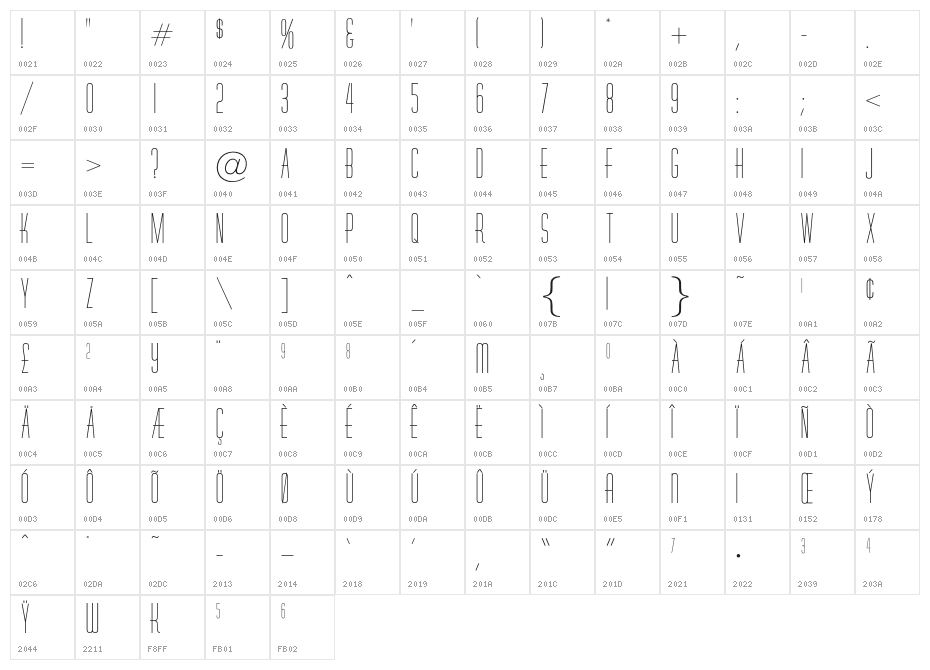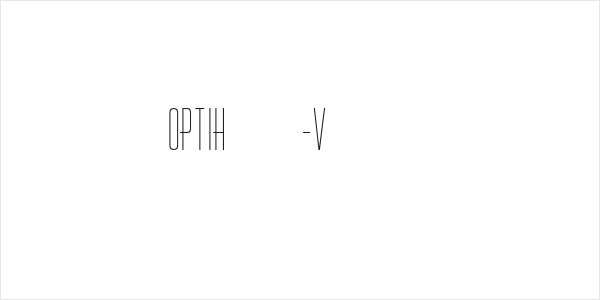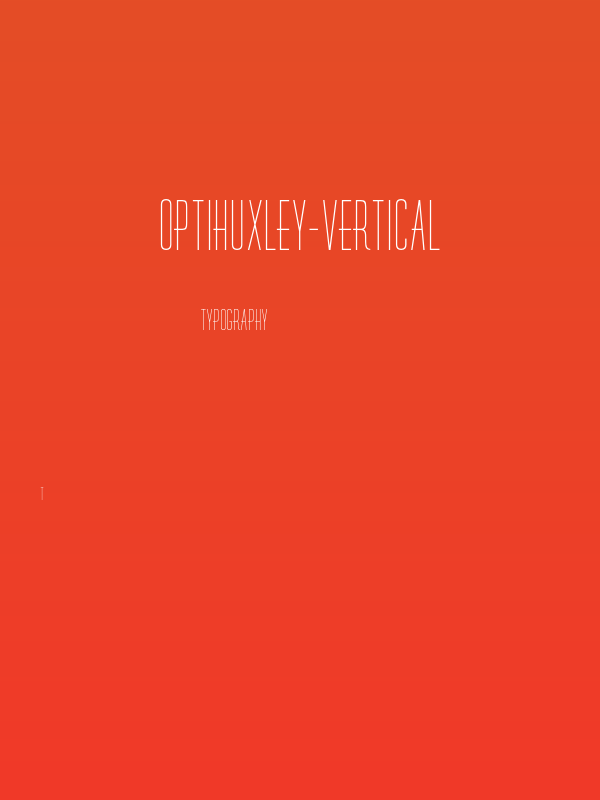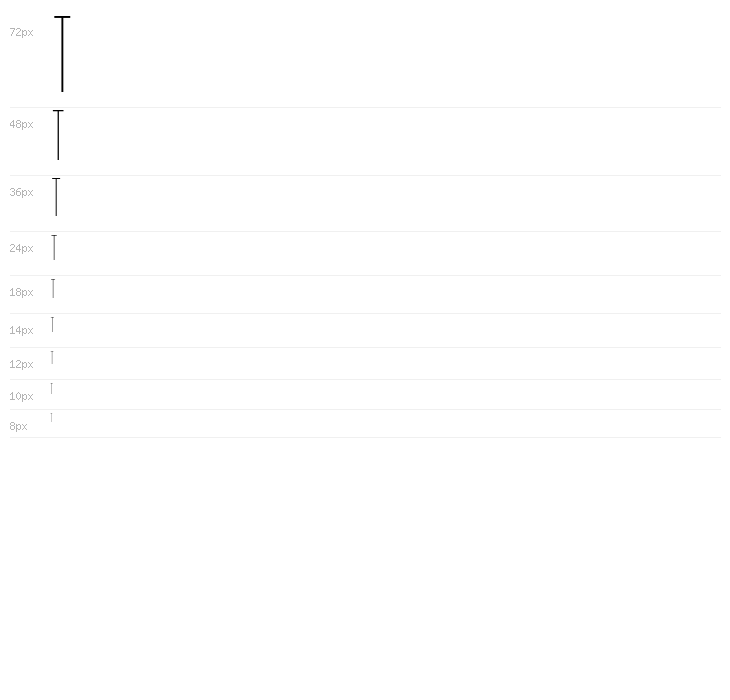
OPTIHuxley-Vertical Font
OPTIHuxley-Vertical Description
This font features a tall, narrow design with clean, straight lines and a modern aesthetic. The uppercase letters are elongated, giving a vertical emphasis that adds a sense of elegance and sophistication. The numerals and special characters maintain this sleek, streamlined look, ensuring consistency across all characters. The thin strokes and minimal contrast between thick and thin lines contribute to its refined appearance, making it suitable for contemporary design projects. Its geometric structure and precise alignment offer a professional and polished look.
| Proposed Projects | Ideal for fashion magazines, luxury branding, minimalist posters, and modern web design. |